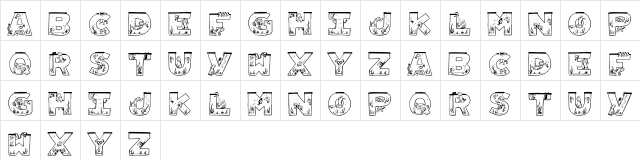
Aquarium Regular Free Font
Aquarium Regular
Design Context for Aquarium
Aquarium is a composed and adaptable typeface that performs quietly and consistently across a wide range of design contexts.